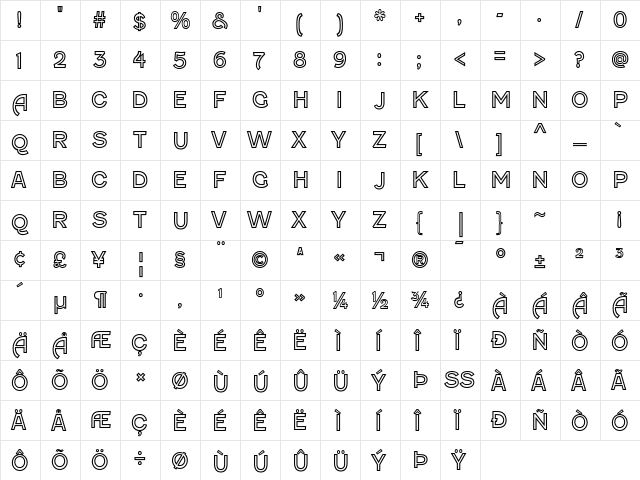
Fenwick Outline
Design Context for Fenwick Typeface
Fenwick brings ornamental detail and strong personality to headlines and identities, where visual impact matters more than quiet functionality.
Font Pairing: Pair with a clean neutral sans-serif for body copy to let Fenwick's character lead without overwhelming the composition.
Pro Tip: Treat Fenwick as the centrepiece of your typographic hierarchy. One strong heading set in a decorative face can carry an entire layout.